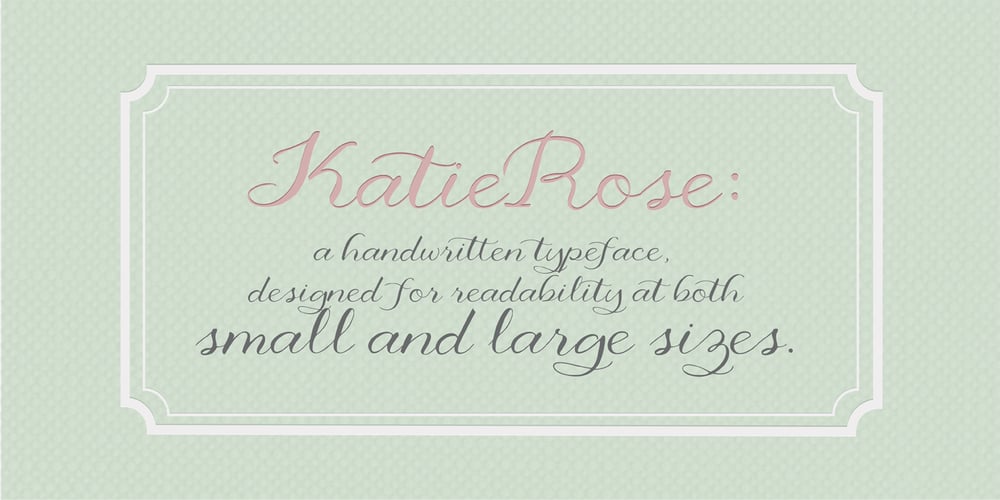
KatieRose Font Family was designed by Laura Condouris and published by Trial by Cupcakes. KatieRose contains 1 styles and family package options. KatieRose was designed by a calligrapher to have an elegant, handwritten feel, without the fussiness of traditional calligraphic scripts. Its fine hairlines and sculptural downstrokes are easily read at display and smaller sizes alike.